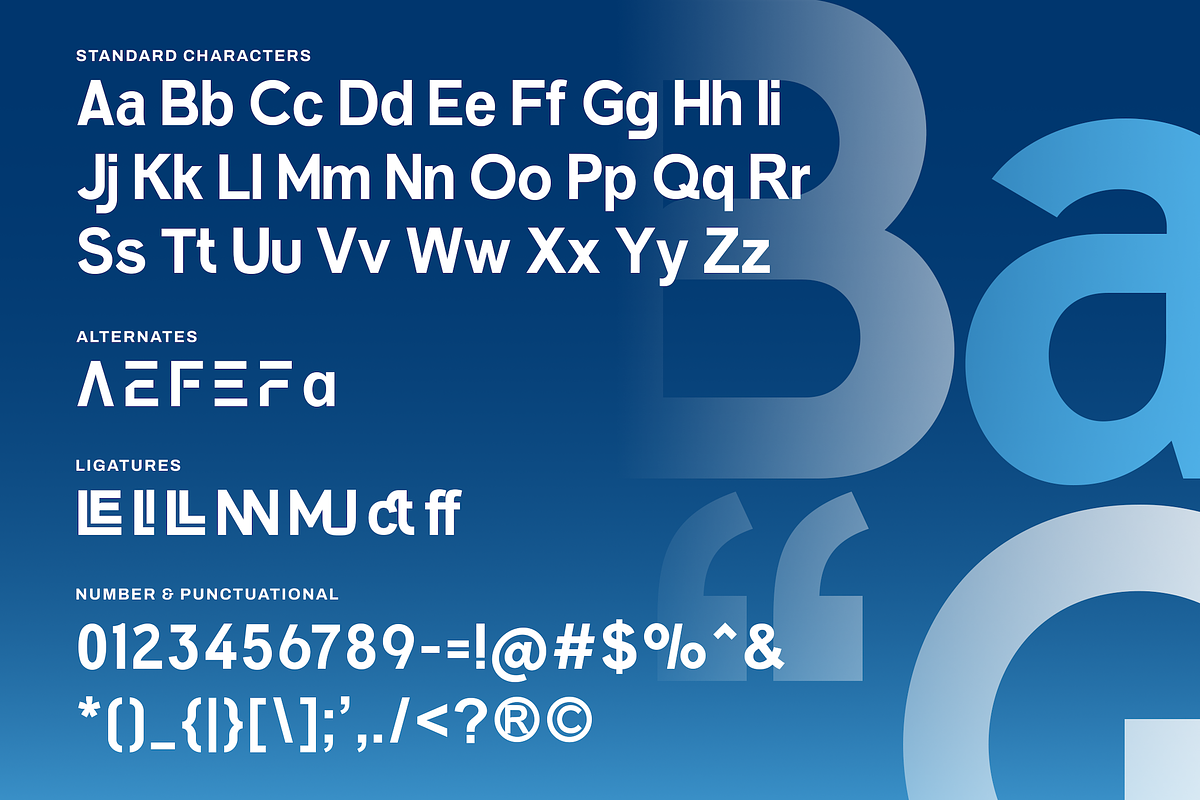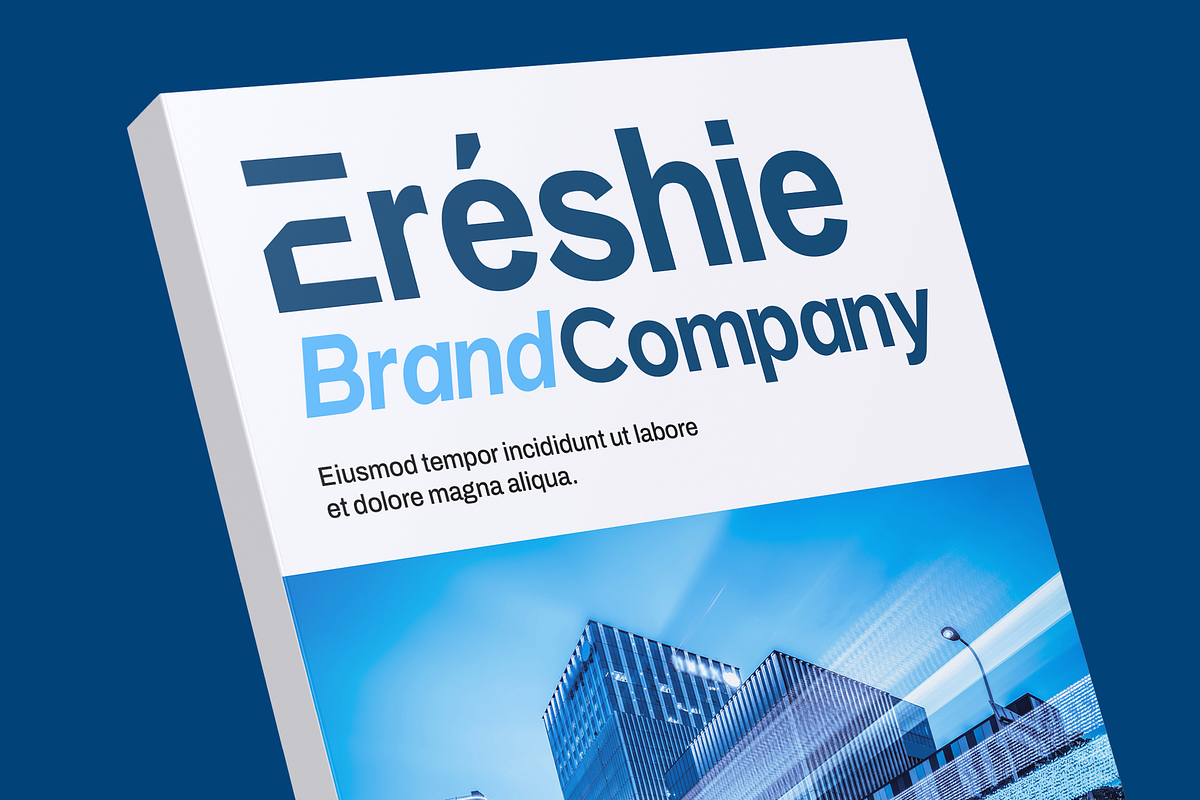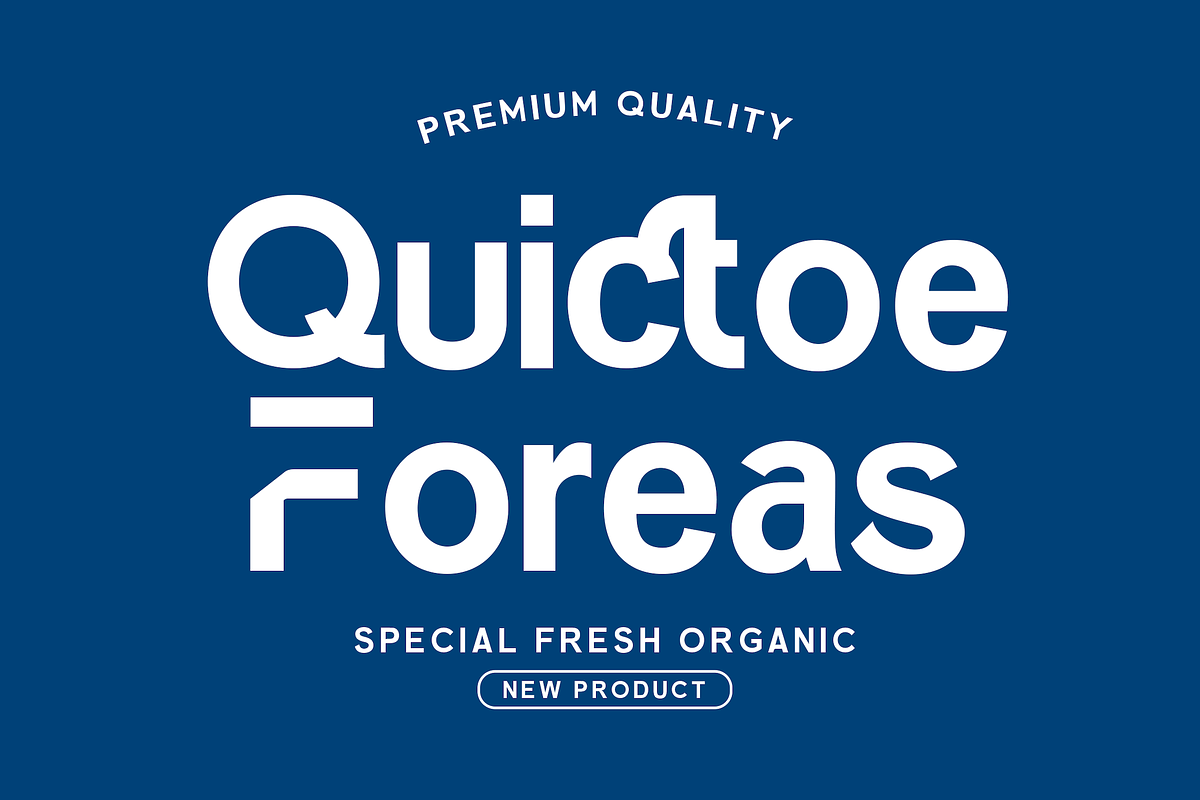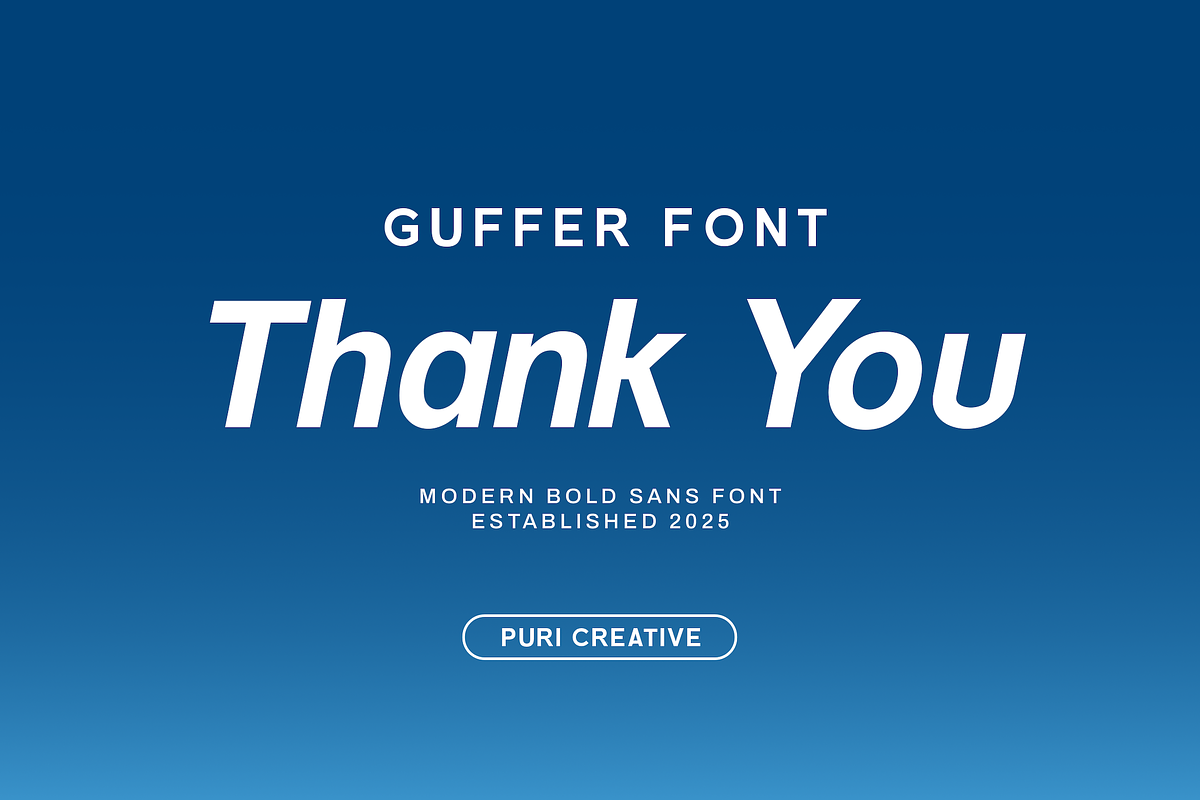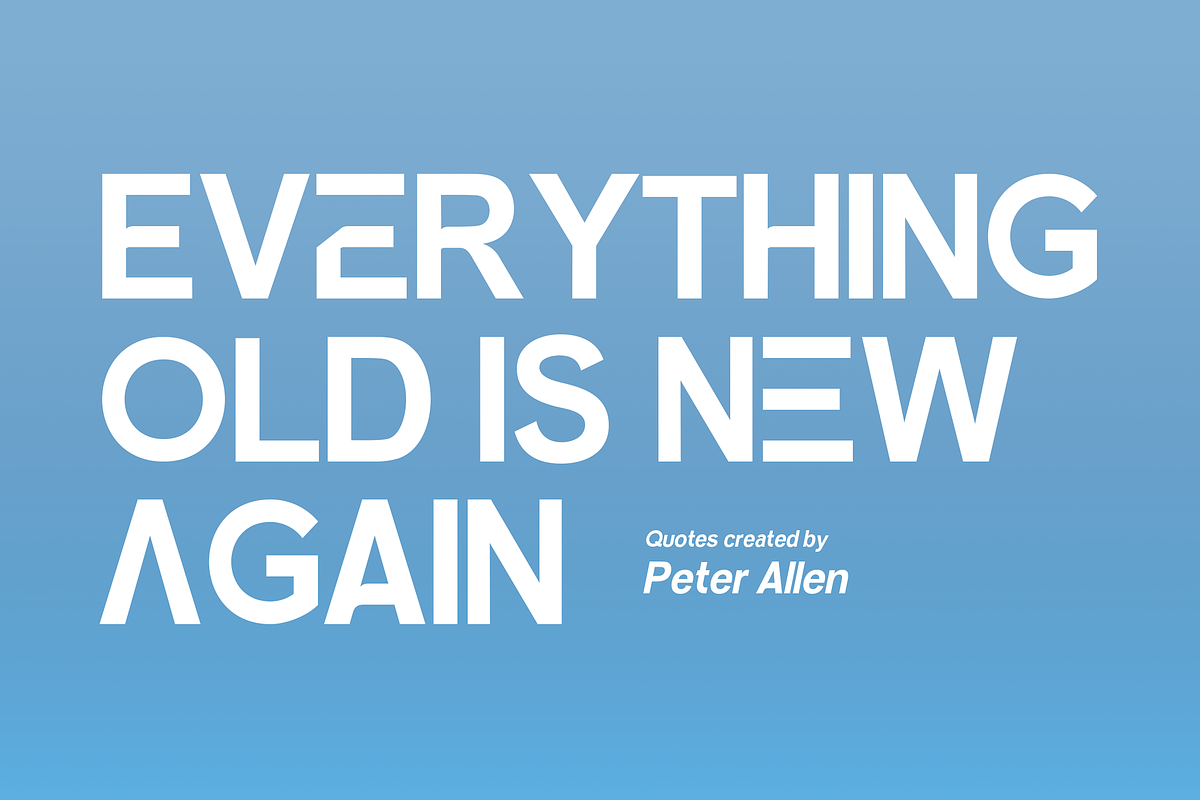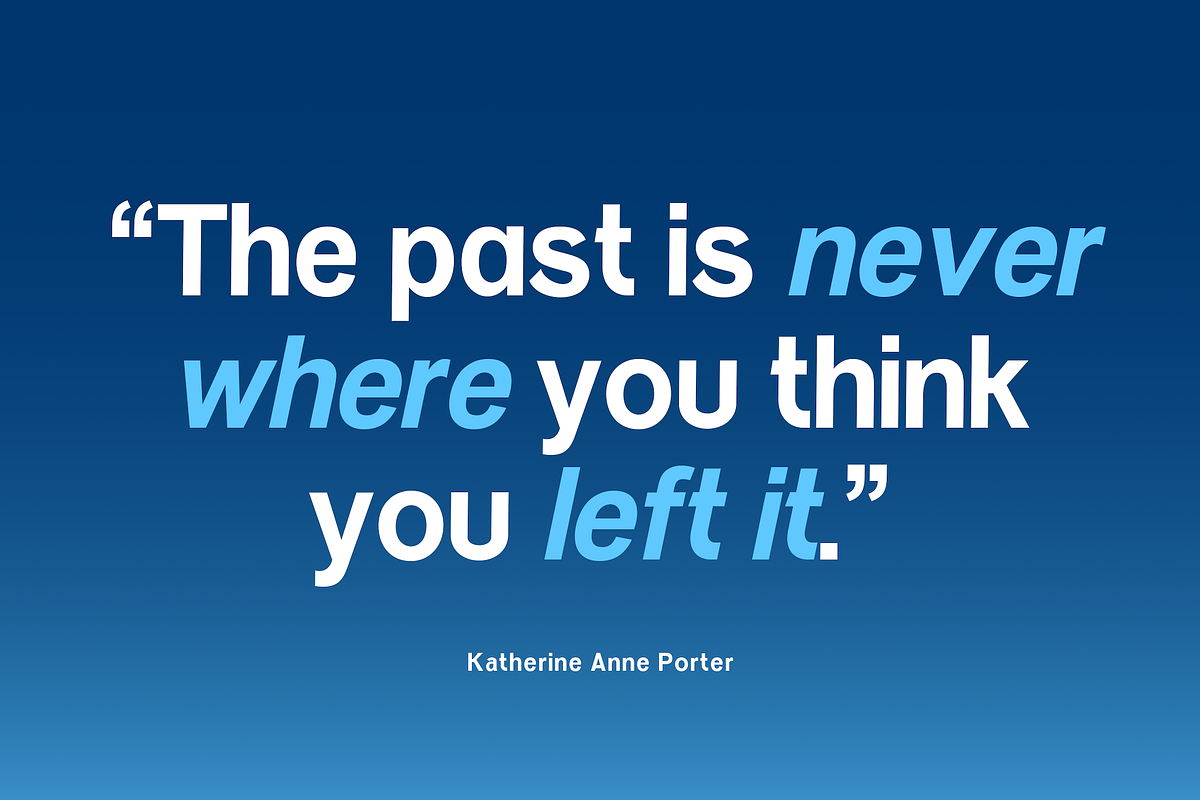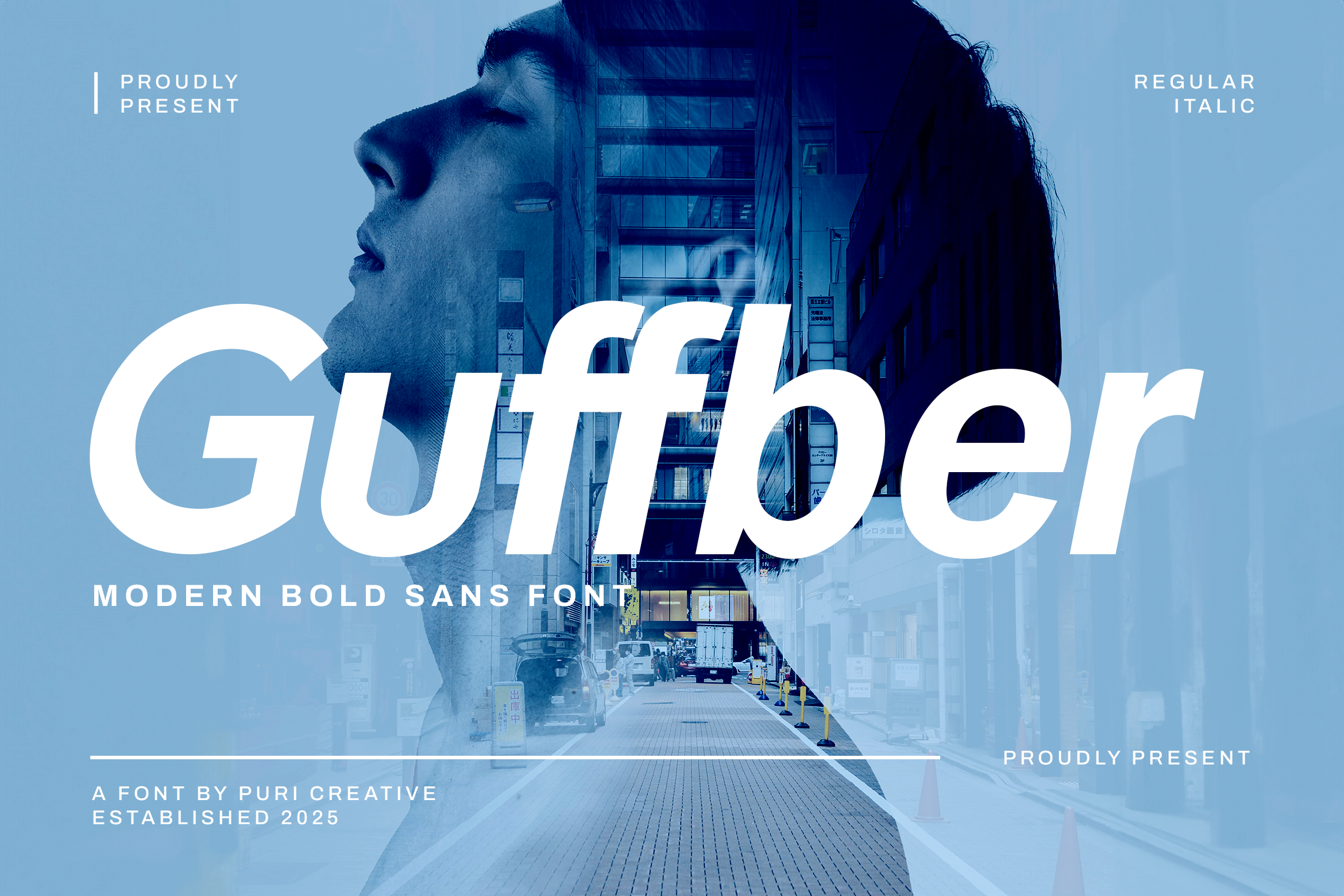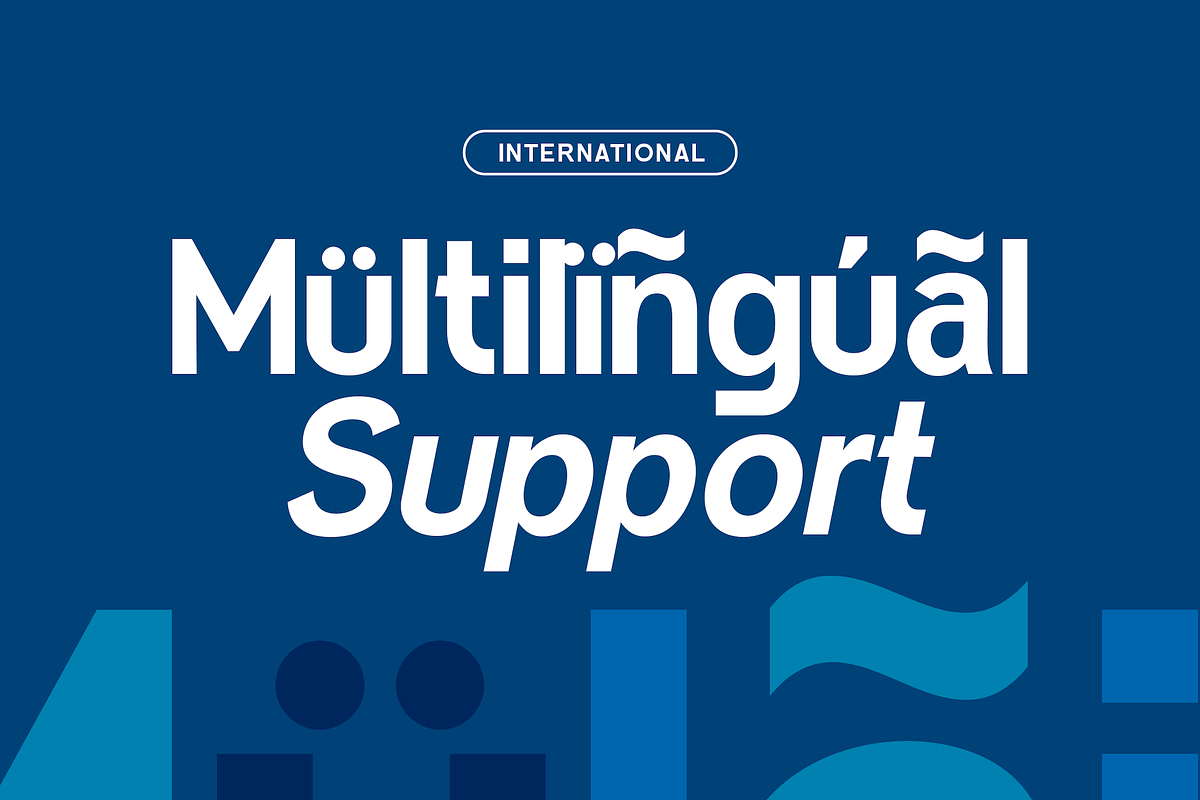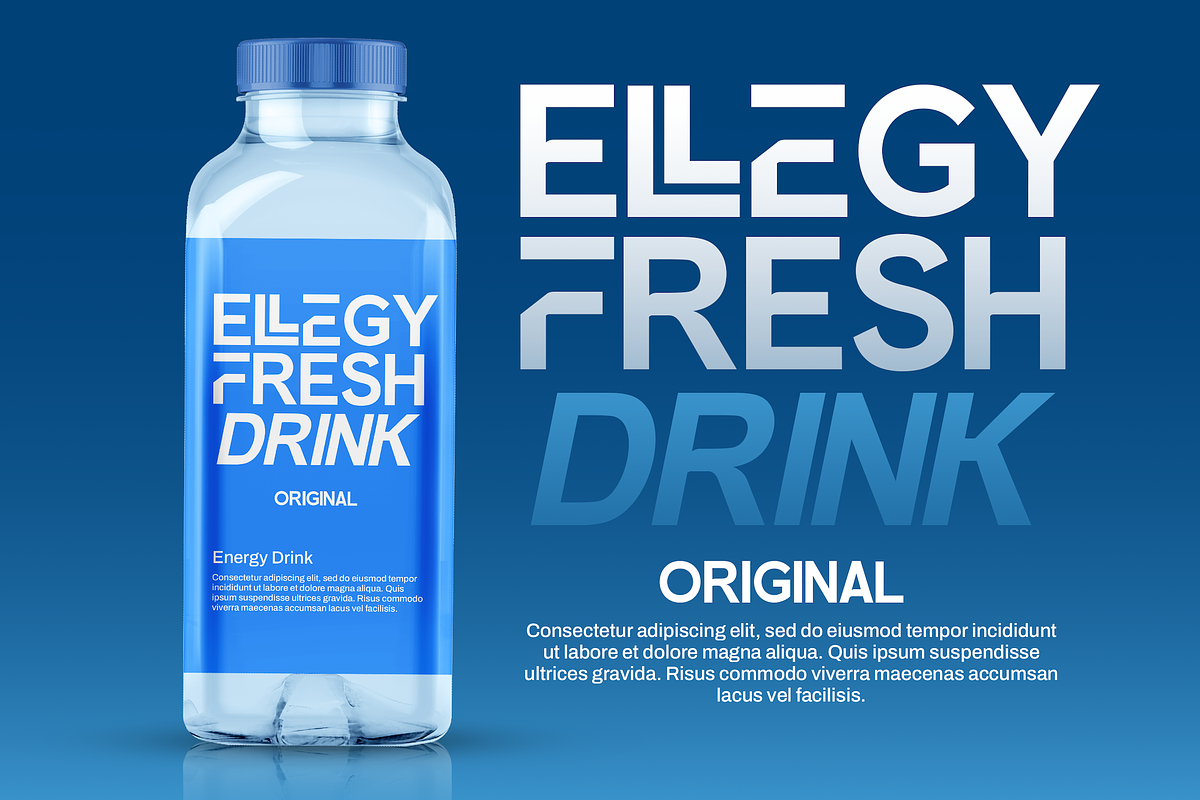
Guffber - Modern Bold Sans Font
Guffber is a modern geometric sans serif font designed to bring clarity, balance, and sophistication to your creative projects. Available in both Regular and Italic styles, this typeface combines sharp geometry with smooth curves, offering a versatile choice for both digital and print use. This font is PUA encoded, which means you can access all of the glyphs with ease!